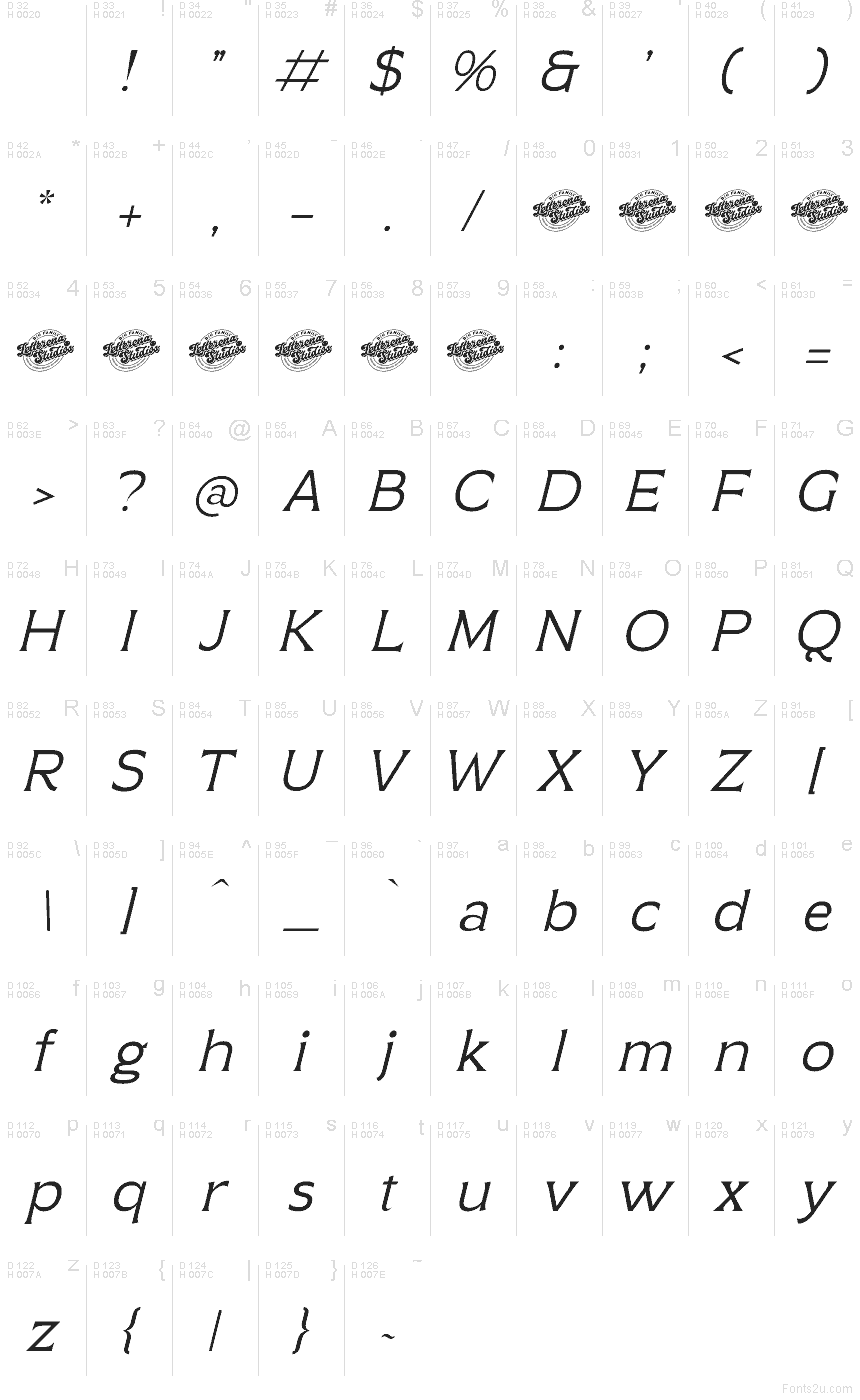
Margelin DEMO VERSION Italic
Margelin Italic font by Letterena Studios is a free elegant serif typeface with a lively, forward-leaning rhythm that feels both literary and luxe. Its sharp, refined serifs and smooth, sloping curves give every word a sense of motion, as if the text were written with a careful, inky pen. The overall texture is crisp yet graceful, adding polish without feeling stuffy or overly formal.
Using Margelin Italic, you can add sophistication to book covers, boutique branding, wine labels, magazine pull quotes, invitations, social media graphics, and refined logos. This free font shines when used at larger sizes where its subtle angles and tapering strokes can really breathe. For a balanced look, pair Margelin Italic with a clean sans serif for body text, letting Margelin handle headlines, names, and short phrases that need extra charm.